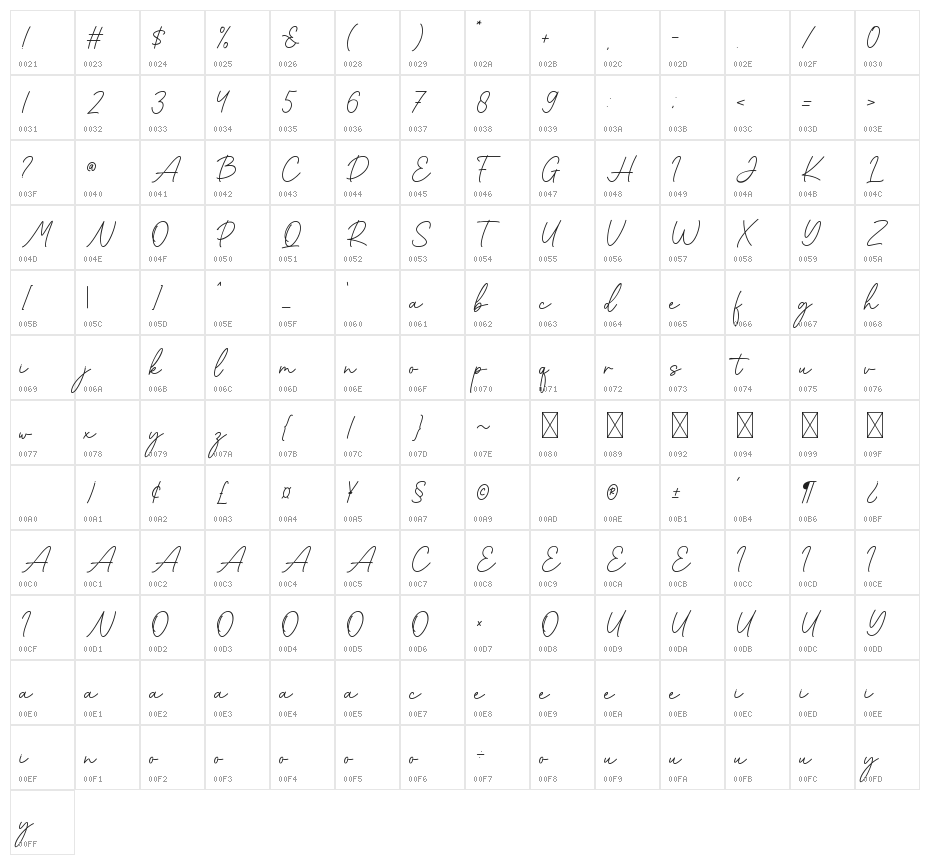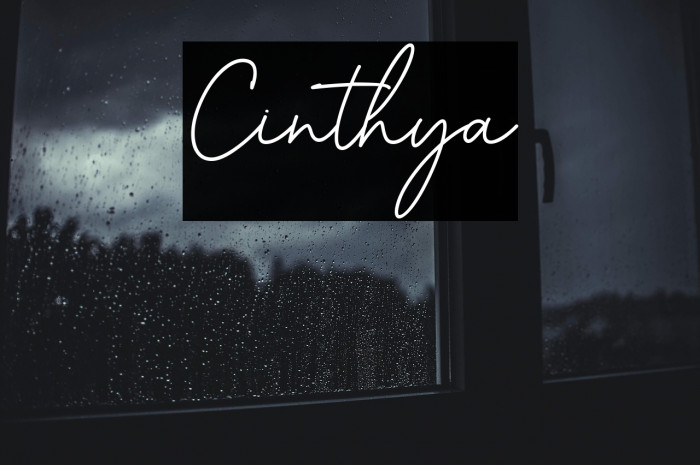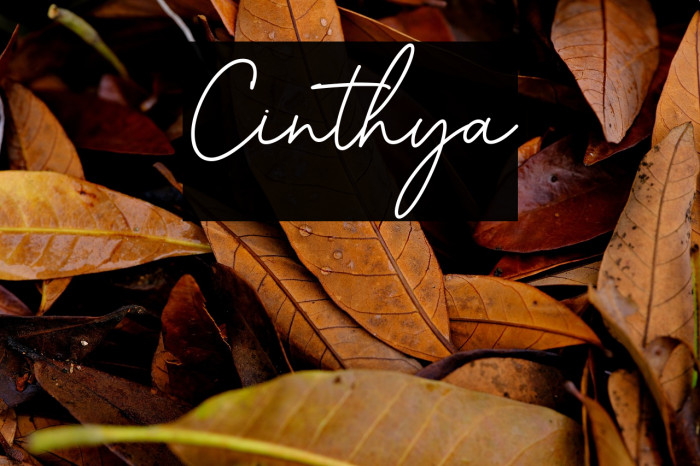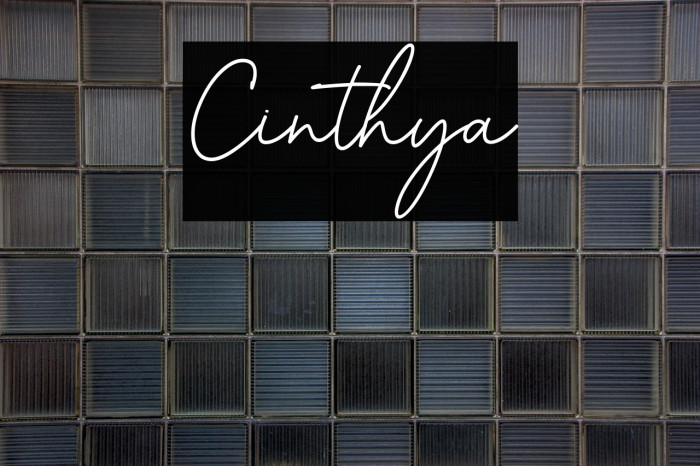
Cinthya Font
Cinthya Description
This font exudes a casual elegance with its fluid, cursive style. The letters are interconnected, giving it a handwritten feel that is both personal and stylish. The uppercase letters maintain a consistent height, while the lowercase letters feature graceful loops and curves. The numerals are clear and complement the overall script style. Special characters are seamlessly integrated, maintaining the font's cohesive look. This font is perfect for projects that require a personal touch, such as invitations, greeting cards, or branding materials.
| Overall Style | Elegant, Handwritten |
| Proposed Projects | Ideal for wedding invitations, personal branding, greeting cards, and elegant stationery. |